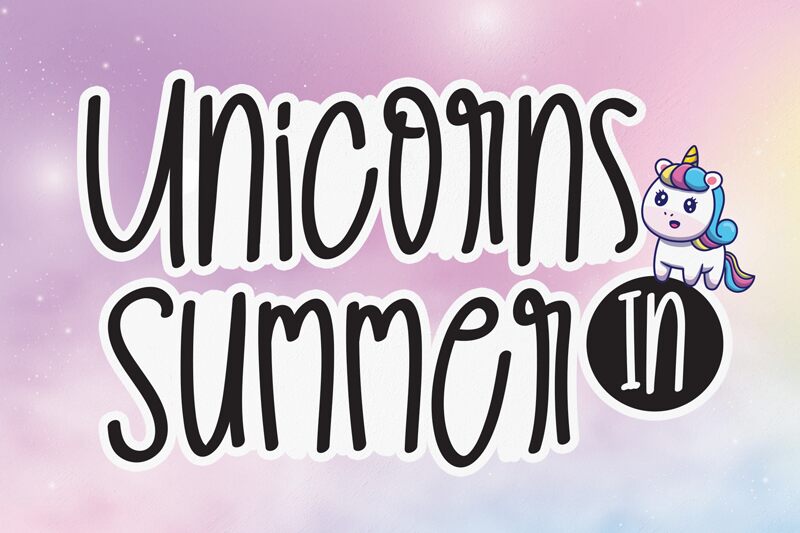
Unicorns In Summer
Unicorns In Summer font is a quality handwritten font designed by Andi Moz.
the latest style letters are perfect for wall displays, wedding invitations, social media post logos, advertisements, product packaging, product designs, labels, photography, watermarks, invitations, stationery, and any project that requires taste handwriting.